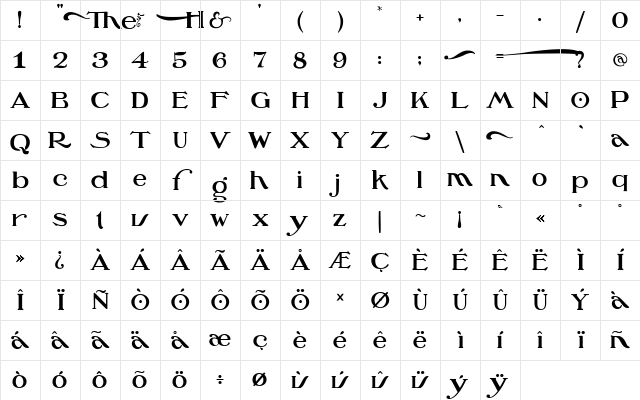
Oz'sWizard echoes the hand-painted signage and woodblock typography of the American frontier, with a warm, rugged personality.
Font Pairing: Combine Oz'sWizard with a simple slab or neutral sans - period-accurate companions reinforce the vintage feel without competing for attention.
Pro Tip: Use Oz'sWizard for short, impactful bursts of text - it shines in poster headlines and product names rather than extended copy.